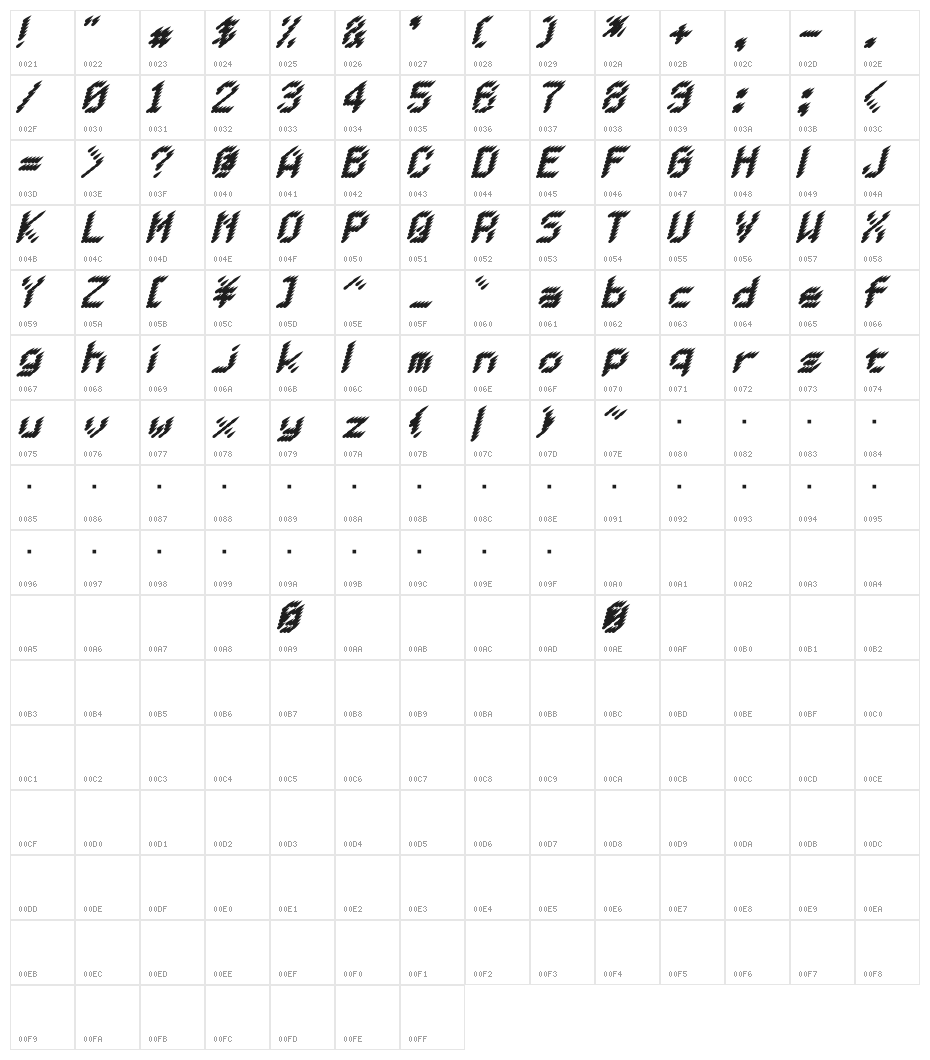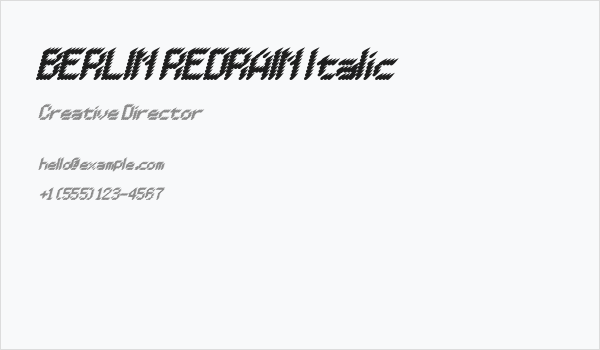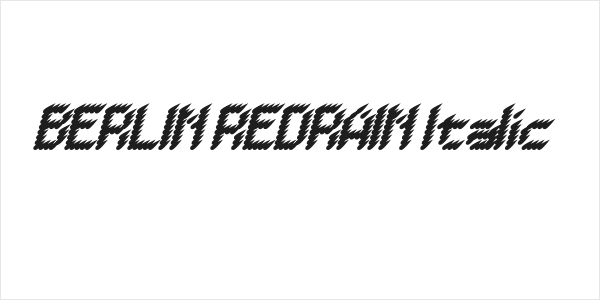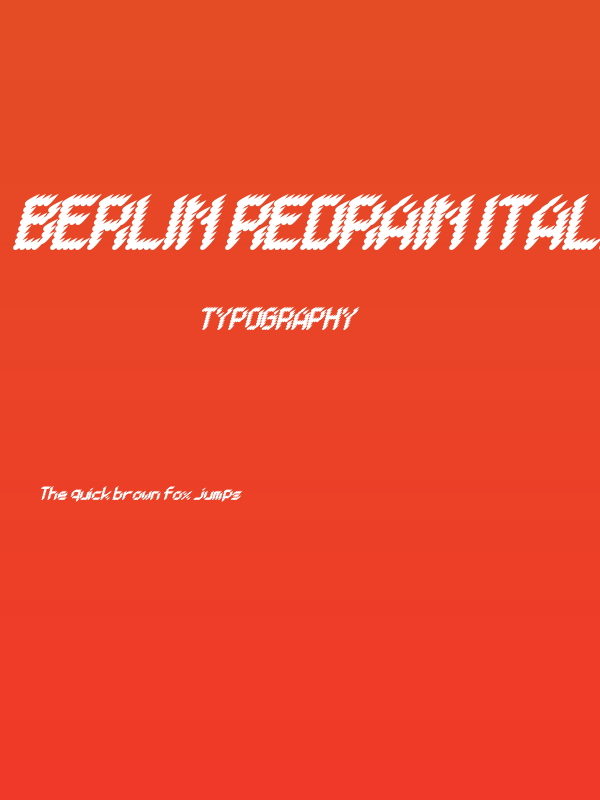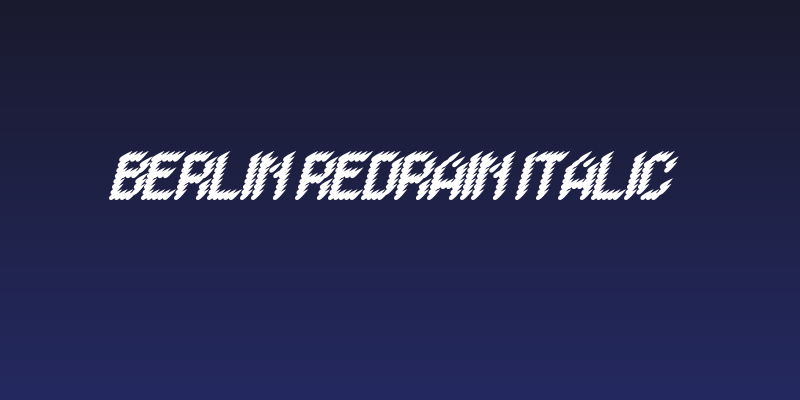
BERLIN REDRAIN Italic Font
BERLIN REDRAIN Italic Description
This font features a dynamic and energetic style with a distinct italic slant, giving it a sense of motion and urgency. The characters are bold and heavily stylized, with a zigzag pattern that adds a unique texture to the text. The uppercase and lowercase letters maintain a consistent design, ensuring readability while still offering a decorative flair. Numbers and special characters are equally bold, making them stand out. The overall appearance is striking and modern, perfect for making a statement.
| Proposed Projects | Ideal for branding, posters, and headlines where a strong visual impact is desired. |